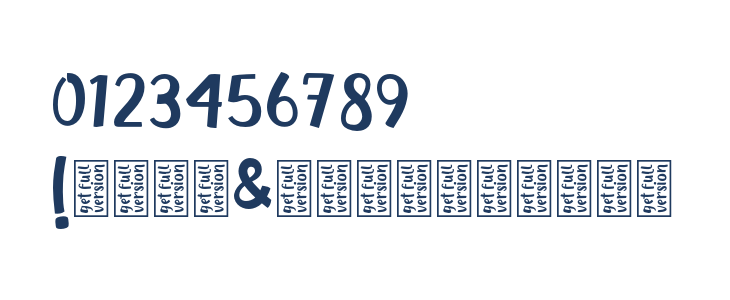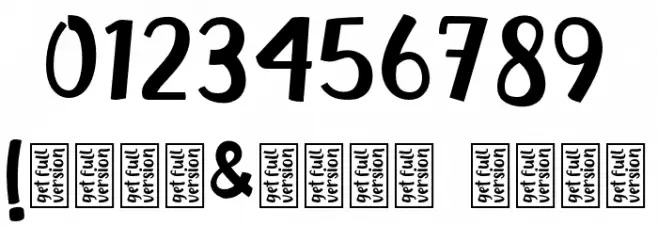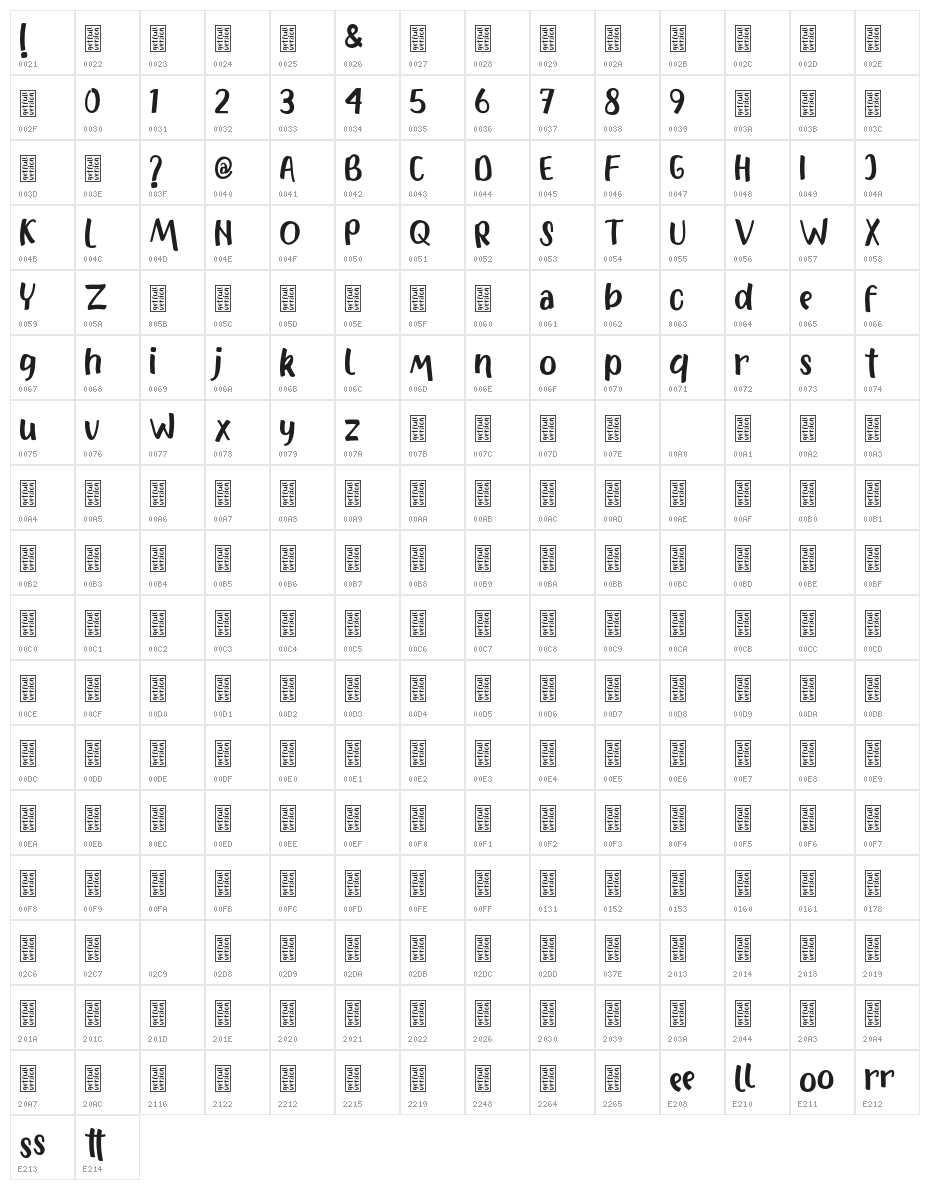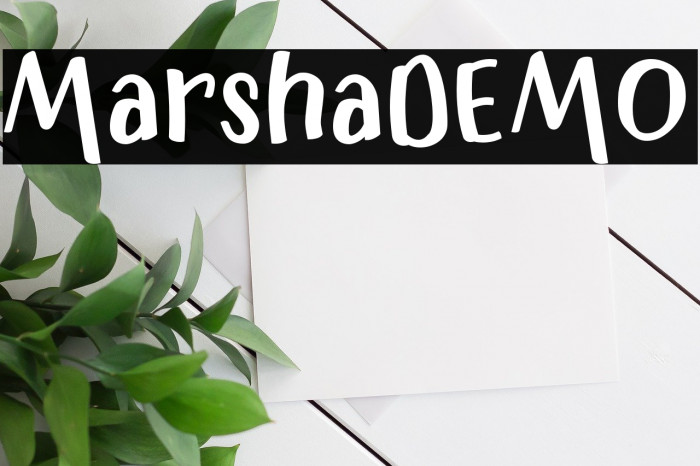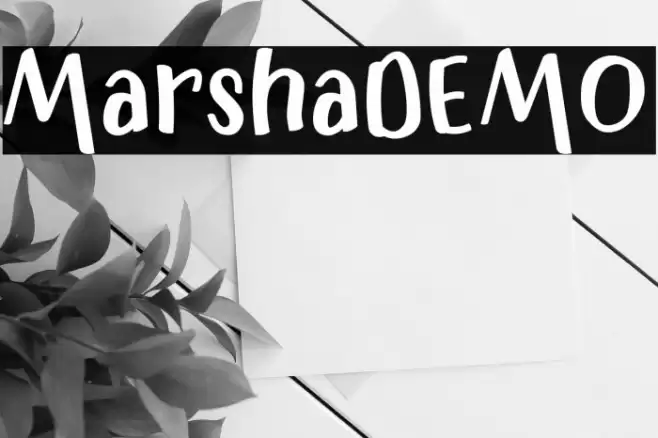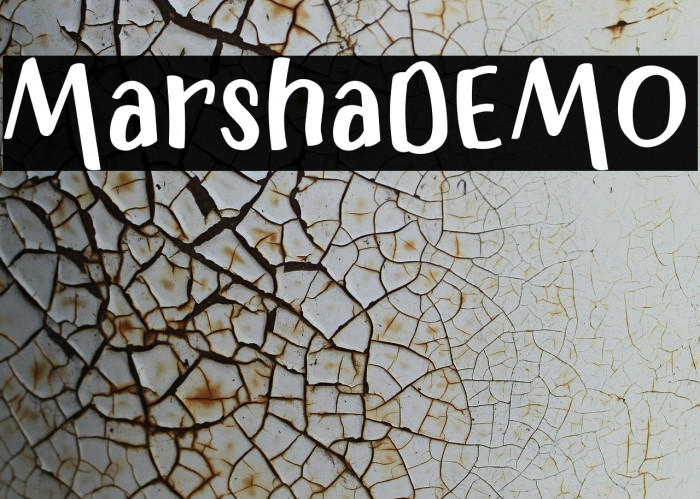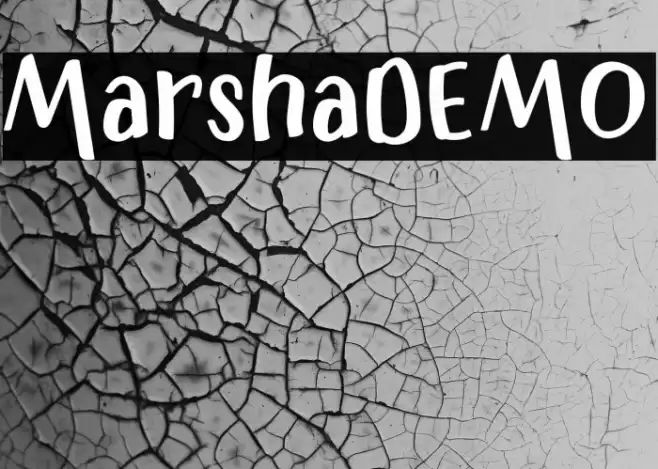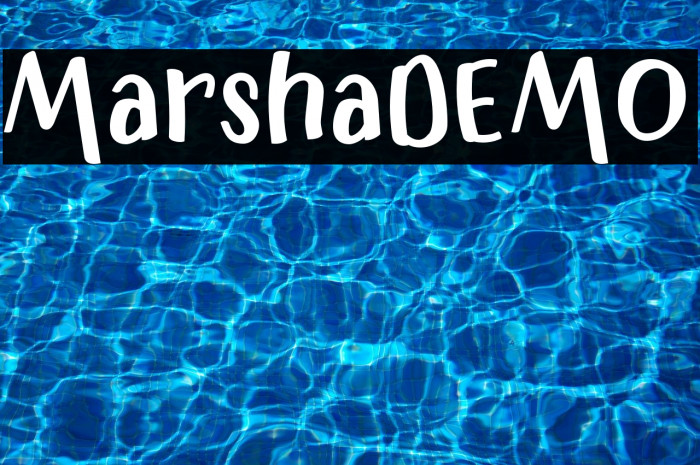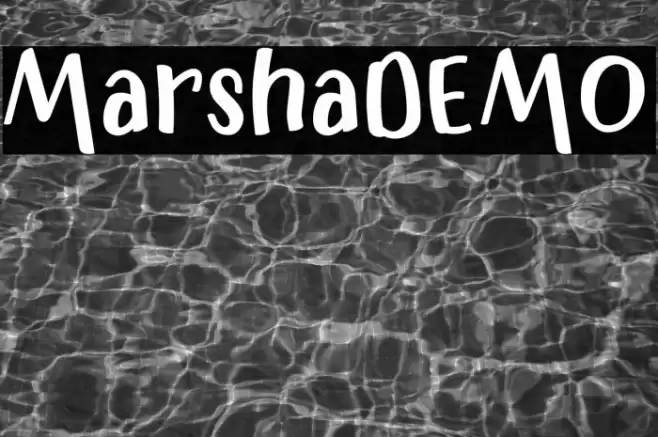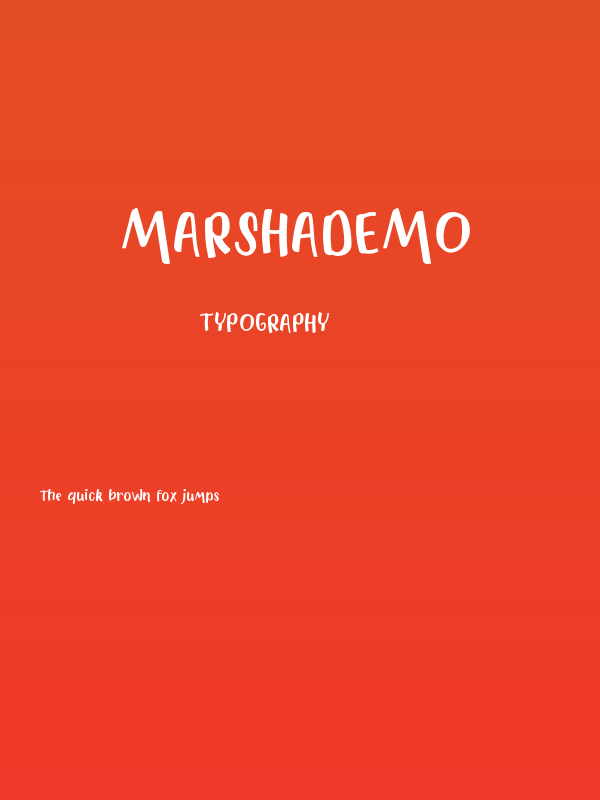
MarshaDEMO Font
MarshaDEMO Description
This font features a playful and casual handwritten style, characterized by its bold and slightly irregular strokes. The uppercase letters are tall and slightly narrow, with a whimsical touch that adds personality. The lowercase letters maintain a consistent flow, with rounded edges and a friendly appearance. Numbers are clear and easy to read, matching the overall playful aesthetic. Special characters are designed with the same casual flair, making them suitable for creative projects. The font's unique style makes it stand out, offering a blend of informality and readability.